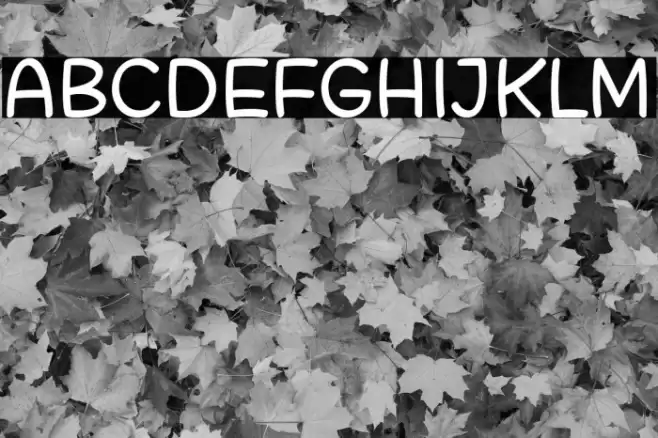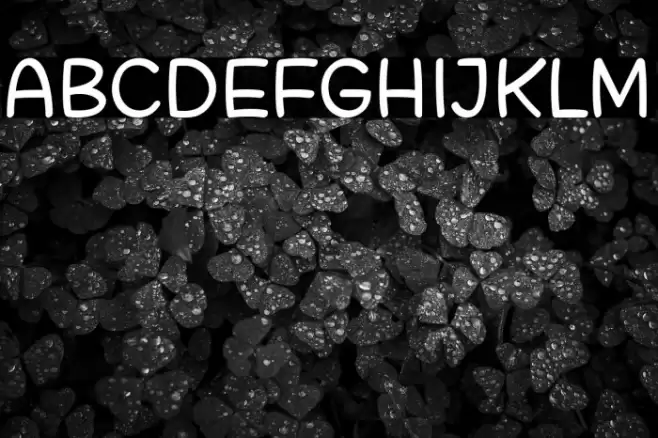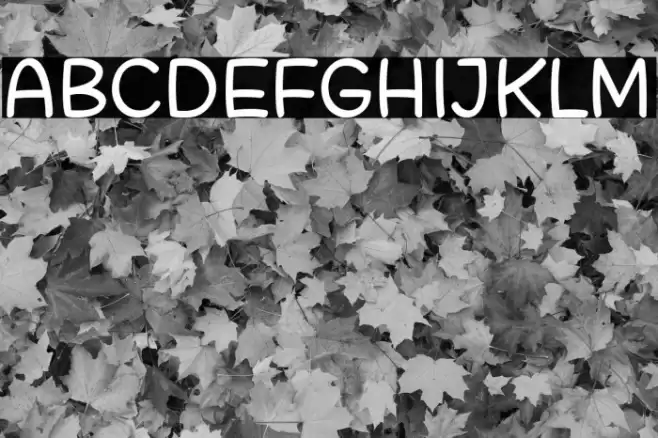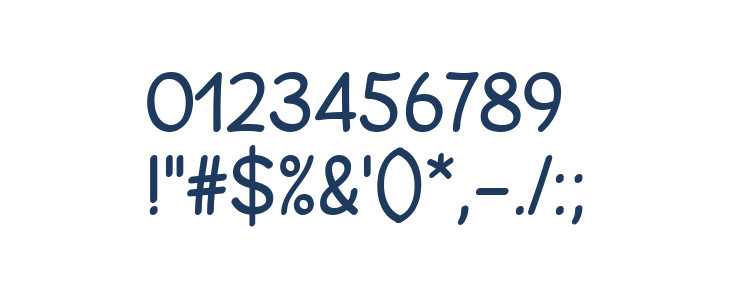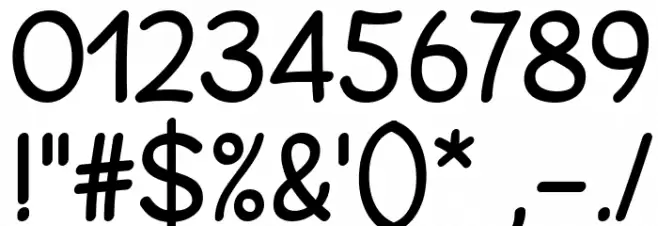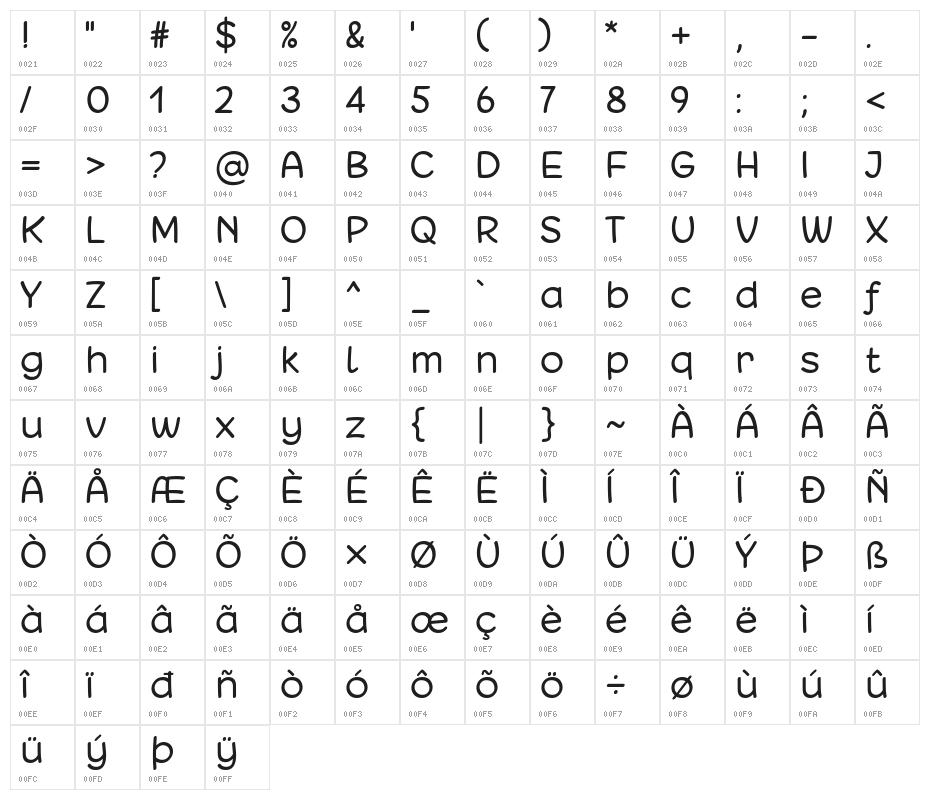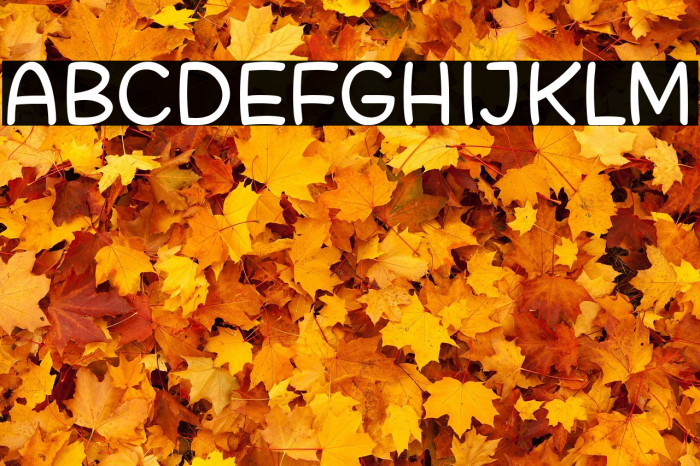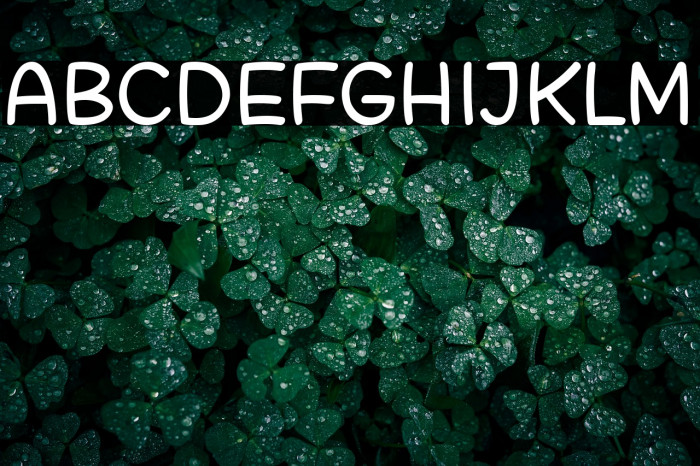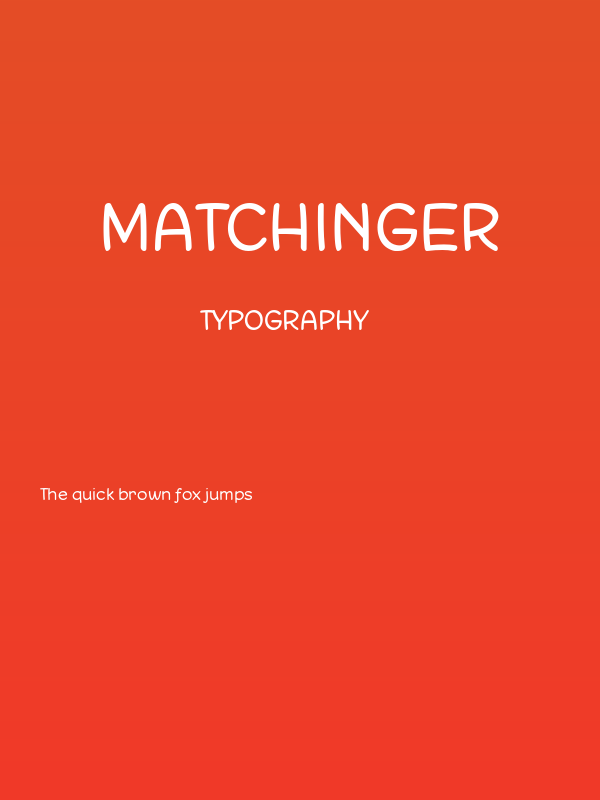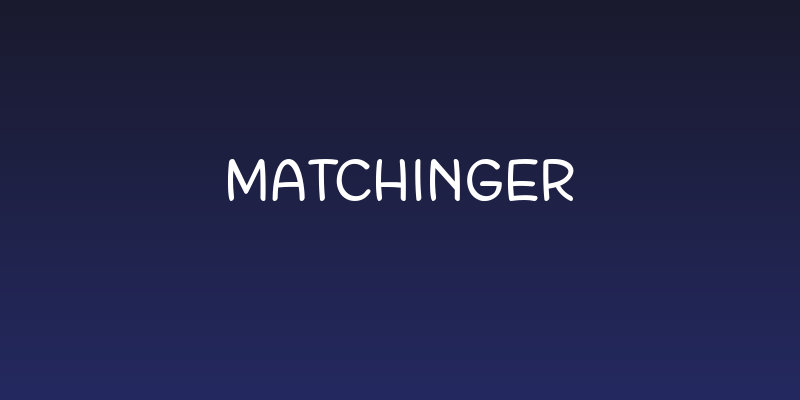
Matchinger Font
Matchinger Description
This playful and rounded font features a casual, handwritten style that exudes a friendly and approachable vibe. The characters are evenly spaced with a consistent stroke width, giving it a clean and balanced appearance. The uppercase and lowercase letters maintain a uniform height, while the numerals and special characters are designed to complement the overall aesthetic. Its simplicity and charm make it suitable for a variety of creative projects.
A playful, rounded handwritten font with a friendly and approachable style from Uncategorized fonts.
- Proposed Projects: Ideal for children's books, greeting cards, playful branding, and informal invitations.
- Overall Style: Casual
- Use Case: Headlines, Logos, Informal Text